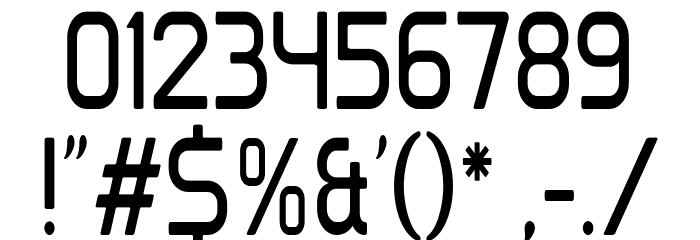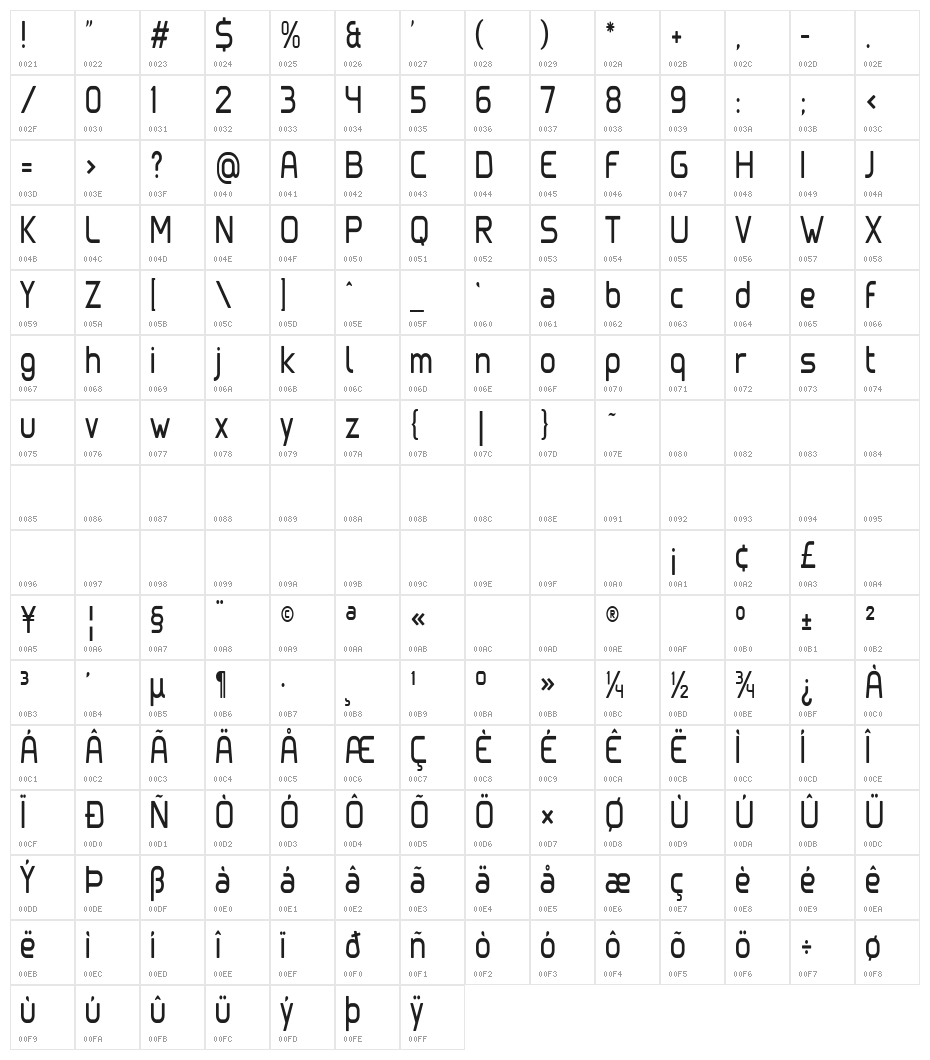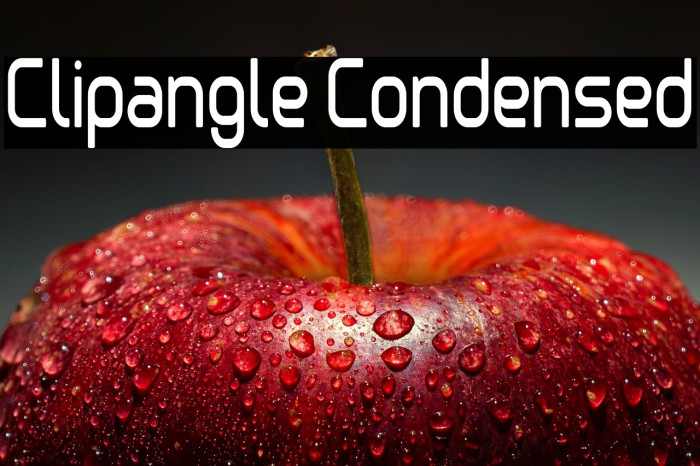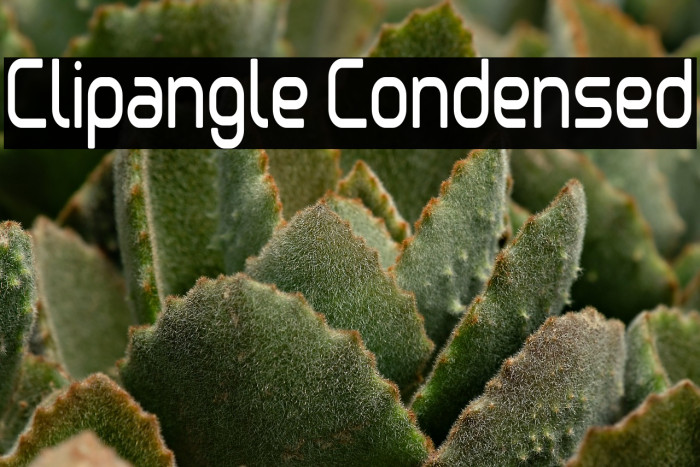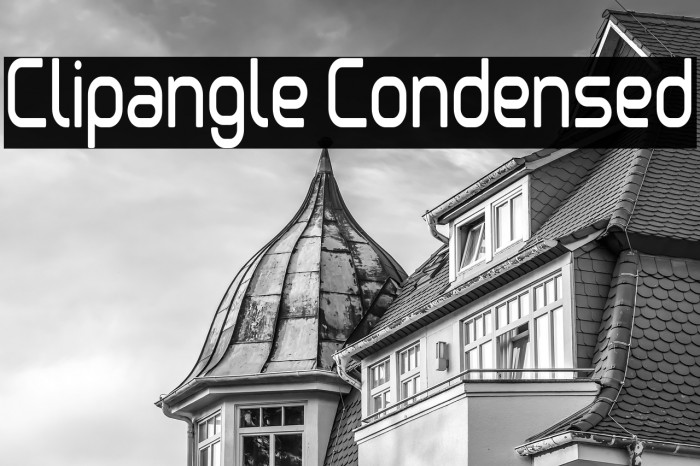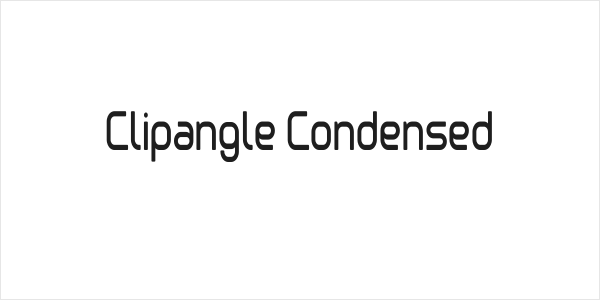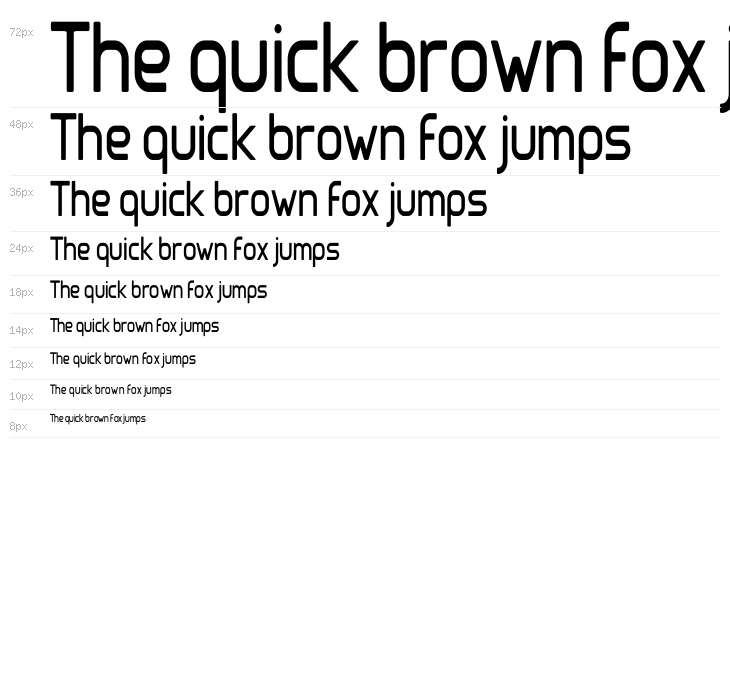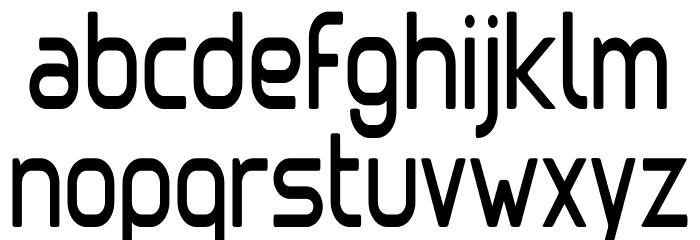
Clipangle Condensed Font
Clipangle Condensed Description
This font features a modern, geometric design with a condensed structure, offering a sleek and streamlined appearance. The characters are uniformly shaped with rounded edges, providing a soft yet contemporary look. The uppercase and lowercase letters maintain a consistent height, enhancing readability. The numerals and special characters are designed to match the overall style, ensuring a cohesive visual experience. This font's clean lines and minimalistic approach make it versatile for various design applications.
| Use Case | Headlines, Logos, Web design |
| Proposed Projects | Ideal for branding, advertising, web design, and editorial layouts. |